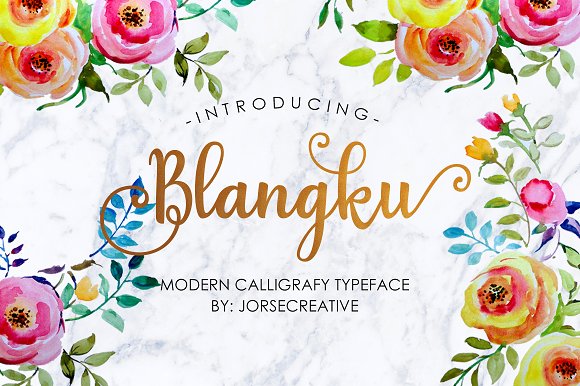
The Blangku Font: A Hand-Drawn Gem for Modern Designs
Have you ever been in the middle of a design project, and suddenly, you’re stuck on finding the perfect font? I recall a recent experience where I was working on a branding project for a trendy coffee shop, and I just couldn’t find a font that captured the modern, fluid feel I was looking for. That’s when I stumbled upon the Blangku font, created by Jorsecreative. This hand-drawn font has been a game-changer for me, and I’m excited to share my experience with you.
A Personal Review: What I Love About Blangku
So, what makes Blangku special? Here are a few things I love about this font:
- ✨ Unique fluid calligraphy style: Blangku has a distinct, hand-drawn feel that adds a touch of elegance to any design.
- ✅ Variety of glyphs and alternate characters: With 469 glyphs and alternate characters, you can create unique designs every time you use Blangku.
- 💡 Perfect for modern designs: Blangku’s fluid style makes it an excellent choice for modern designs, from branding and advertising to packaging and digital media.
While Blangku is an amazing font, there are a few things to keep in mind:
- 🤔 Some characters may require manual adjustment: Due to the hand-drawn nature of Blangku, some characters may need manual adjustment to ensure proper spacing and alignment.
- ⚠️ Not suitable for body text: Blangku is best used for headlines, titles, and short paragraphs. Its fluid style may not be suitable for longer body text.
According to Jorsecreative, the creator of Blangku, the font was inspired by the beauty of fluid calligraphy and the need for a modern, hand-drawn font that could capture the essence of contemporary design. The designer aimed to create a font that would be both elegant and versatile, suitable for a wide range of design applications.
| What is the Blangku font best used for? | Blangku is best used for headlines, titles, and short paragraphs in modern designs, such as branding, advertising, packaging, and digital media. |
| How many glyphs and alternate characters does Blangku have? | Blangku has 469 glyphs and alternate characters, offering a wide range of variations for unique designs. |